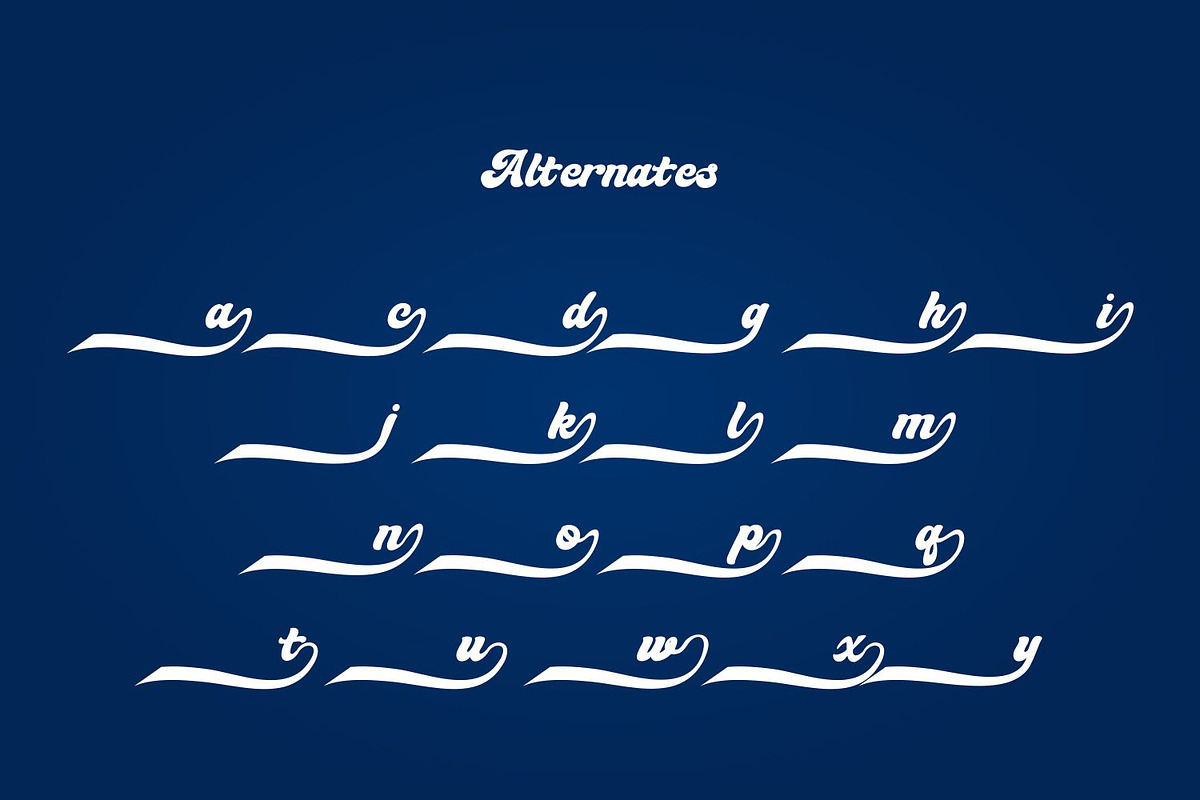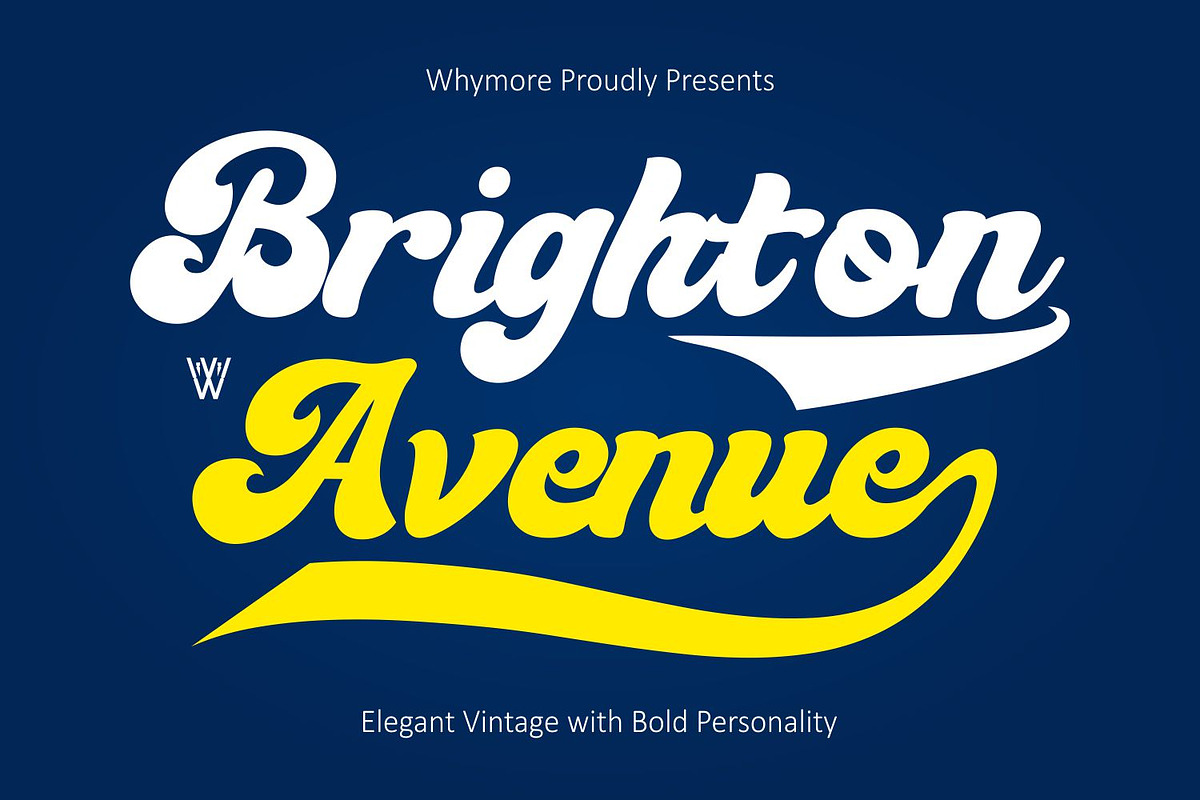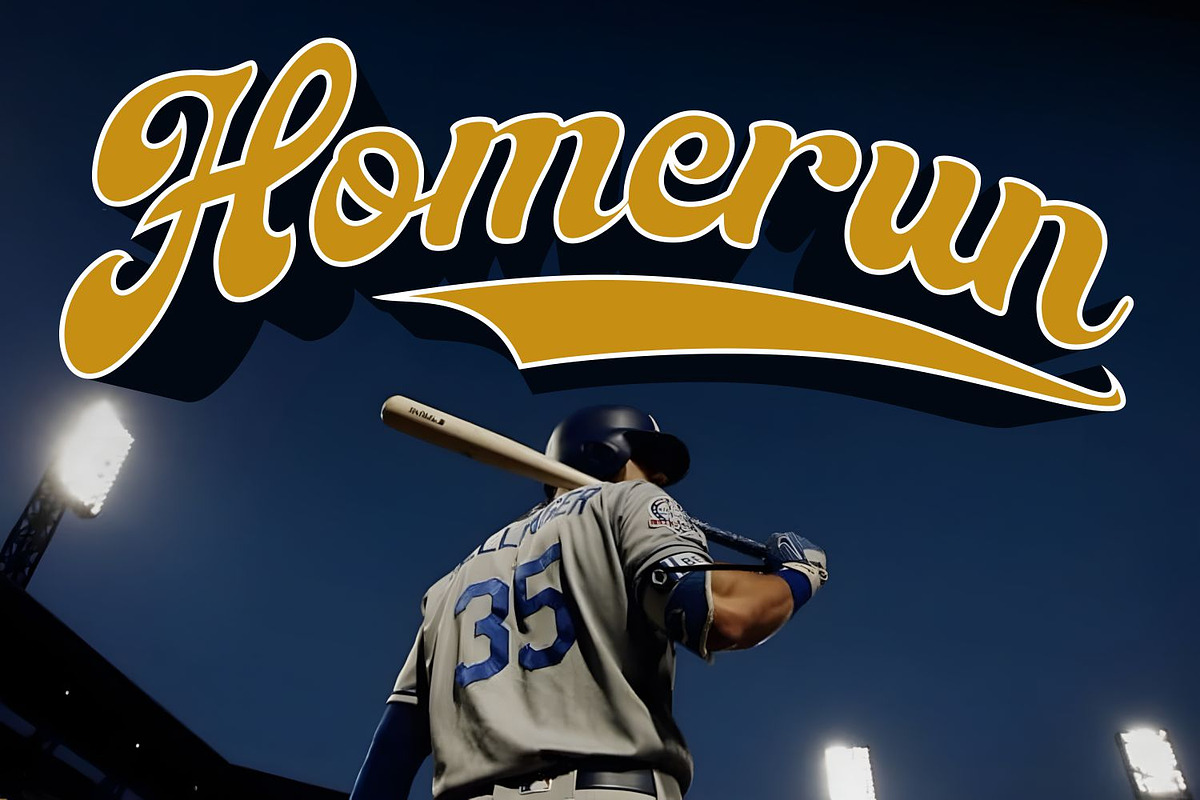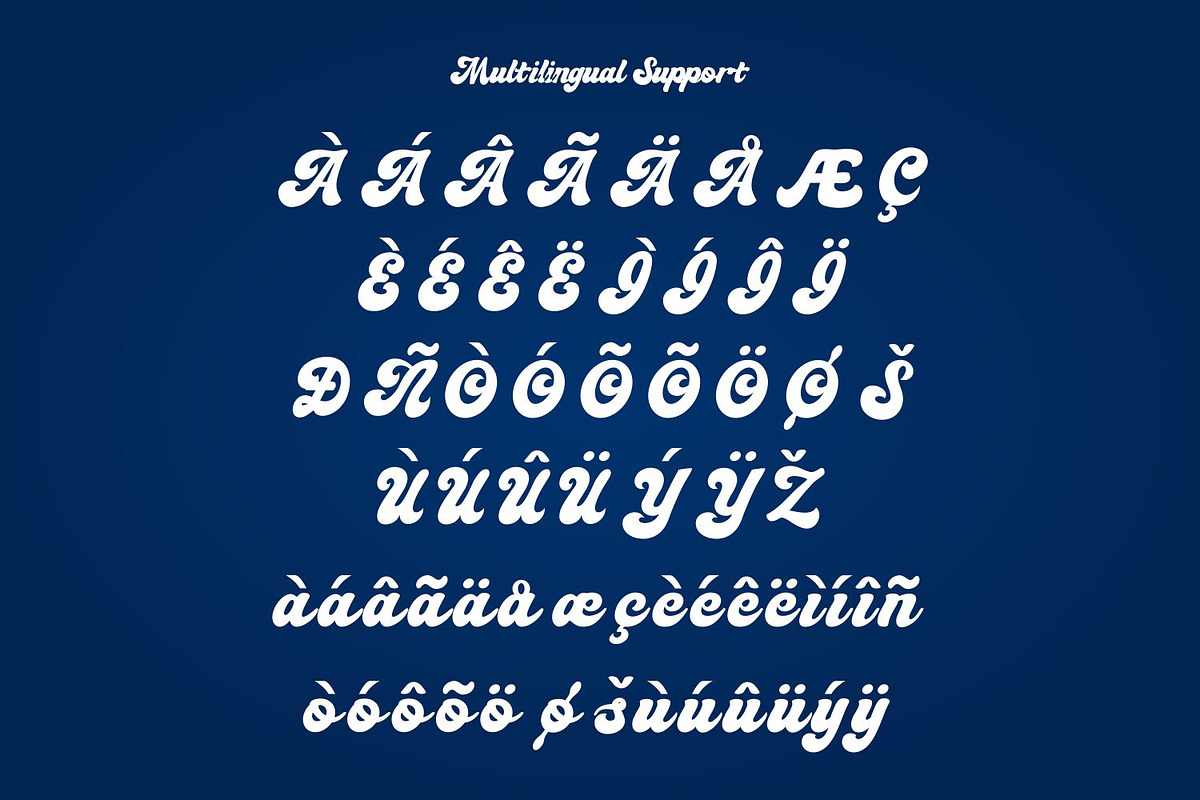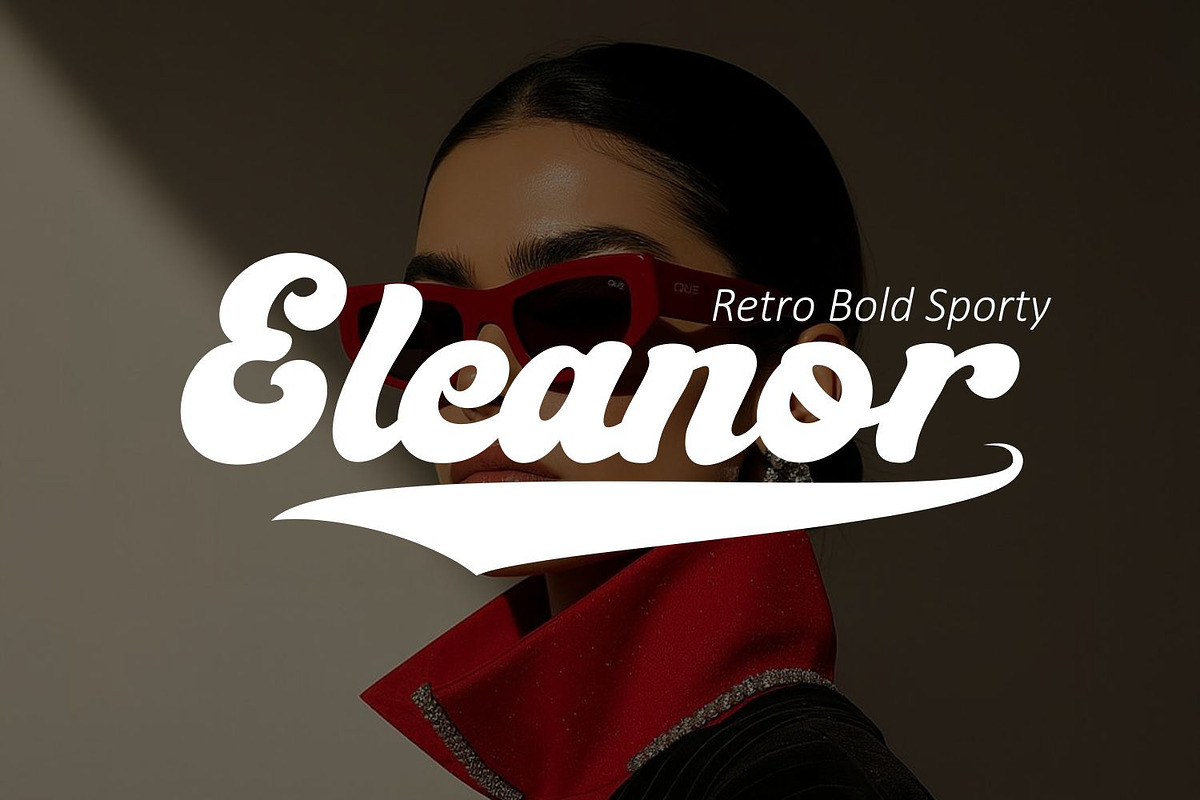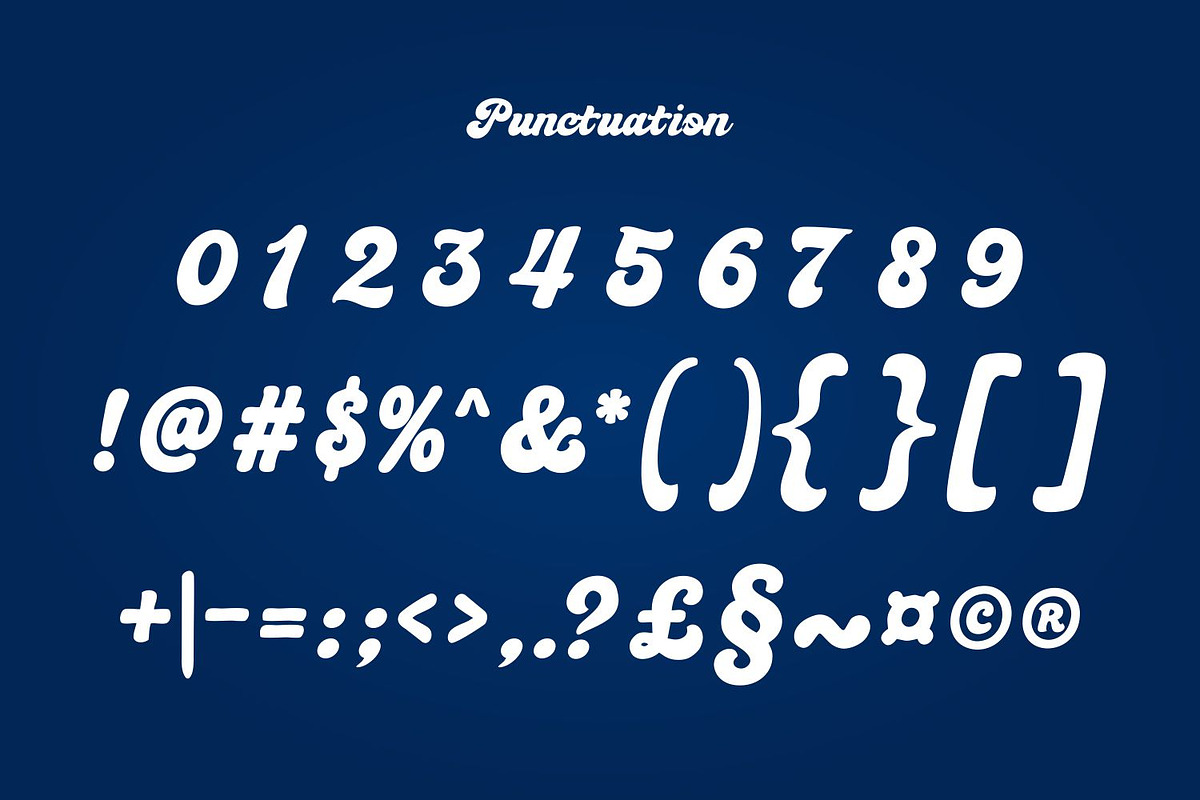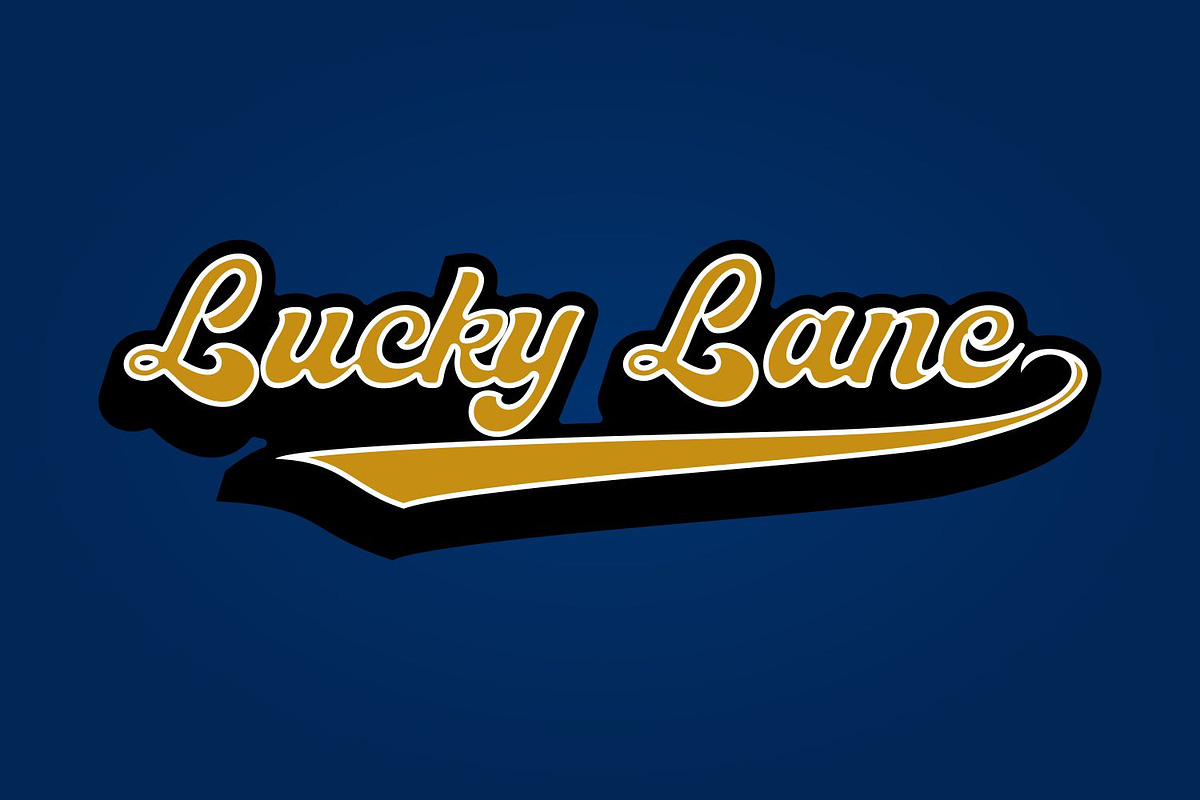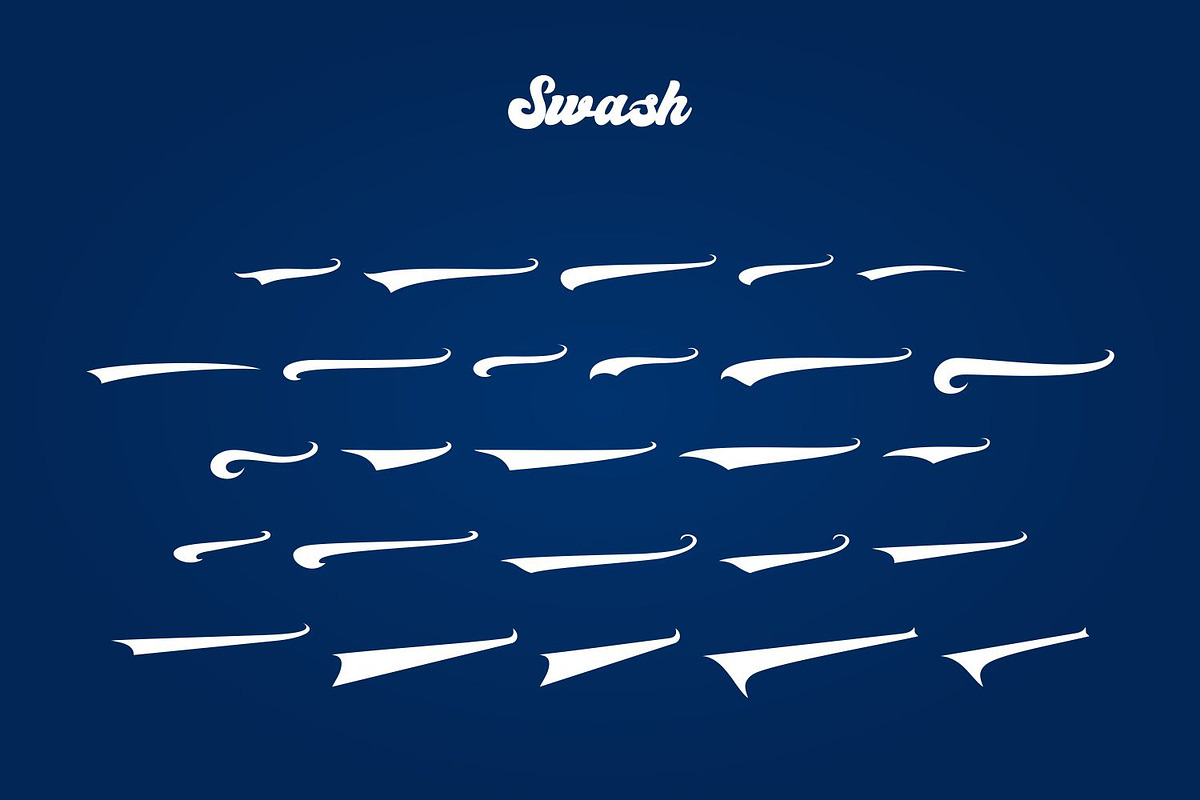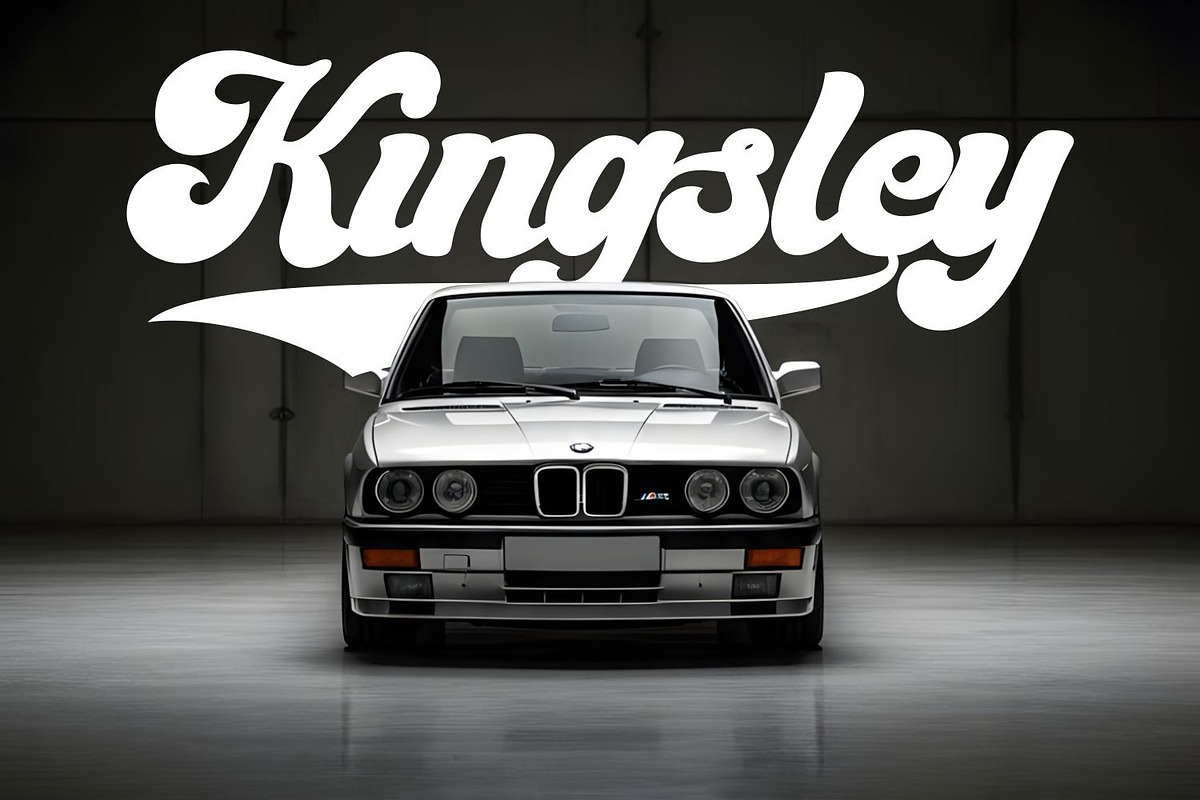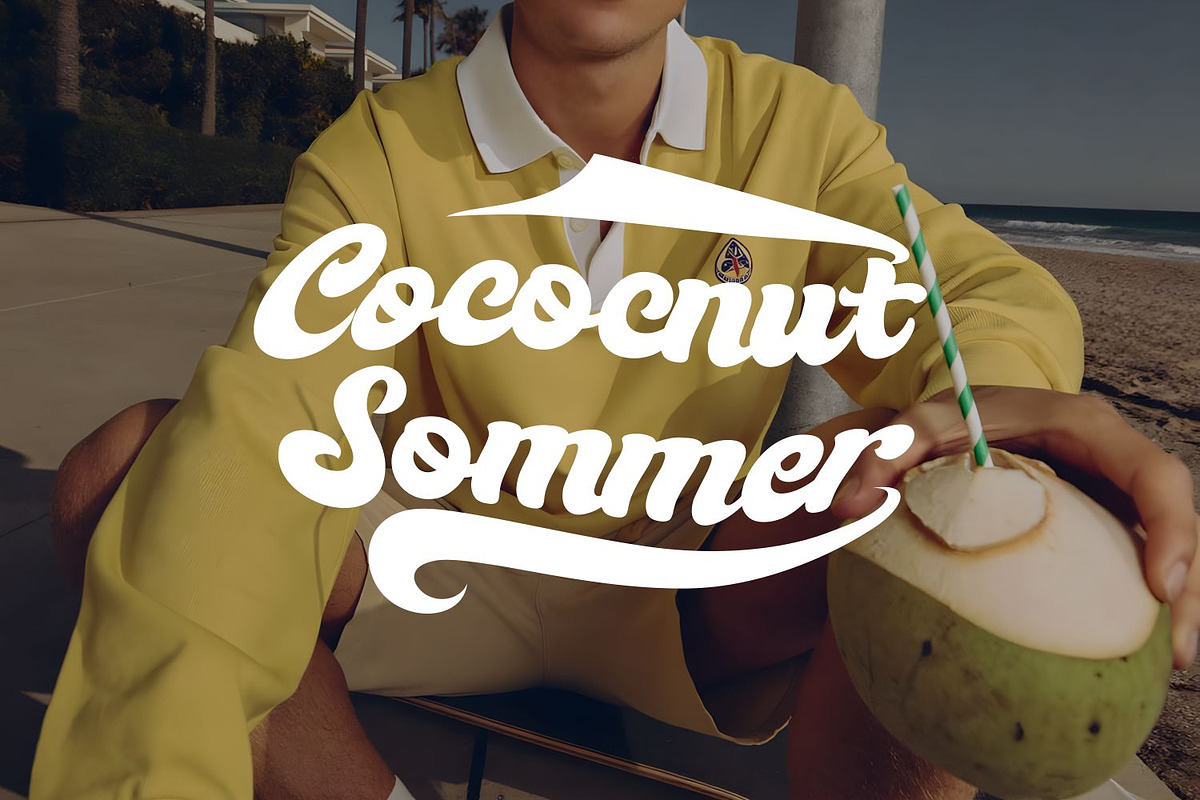
Brighton Avenue – Bold Retro Script
Brighton Avenue is a bold retro script font inspired by classic American signage, vintage sports branding, and nostalgic advertising. Featuring smooth flowing strokes, chunky letterforms, and eye-catching swashes, this typeface instantly brings warmth, confidence, and timeless personality to your designs.
Designed with powerful curves and authentic vintage character, Brighton Avenue is perfect for logos, apparel, sports branding, restaurant identities, café packaging, baseball graphics, badges, posters, and merchandise. Its bold script style creates an energetic yet elegant look that works beautifully for both modern and retro-inspired projects.
Whether you're building a nostalgic brand identity or creating eye-catching headlines, Brighton Avenue delivers the perfect combination of vintage charm and modern usability.
Vintage Logos
Sports Branding
Baseball & Varsity Design
Restaurant & Café Branding
Apparel & Merchandise
Signage
Poster Design
Retro Advertising
Beautiful Swashes
Bring authentic vintage spirit into your typography with Brighton Avenue, a bold retro script font made for standout branding and timeless visual storytelling.